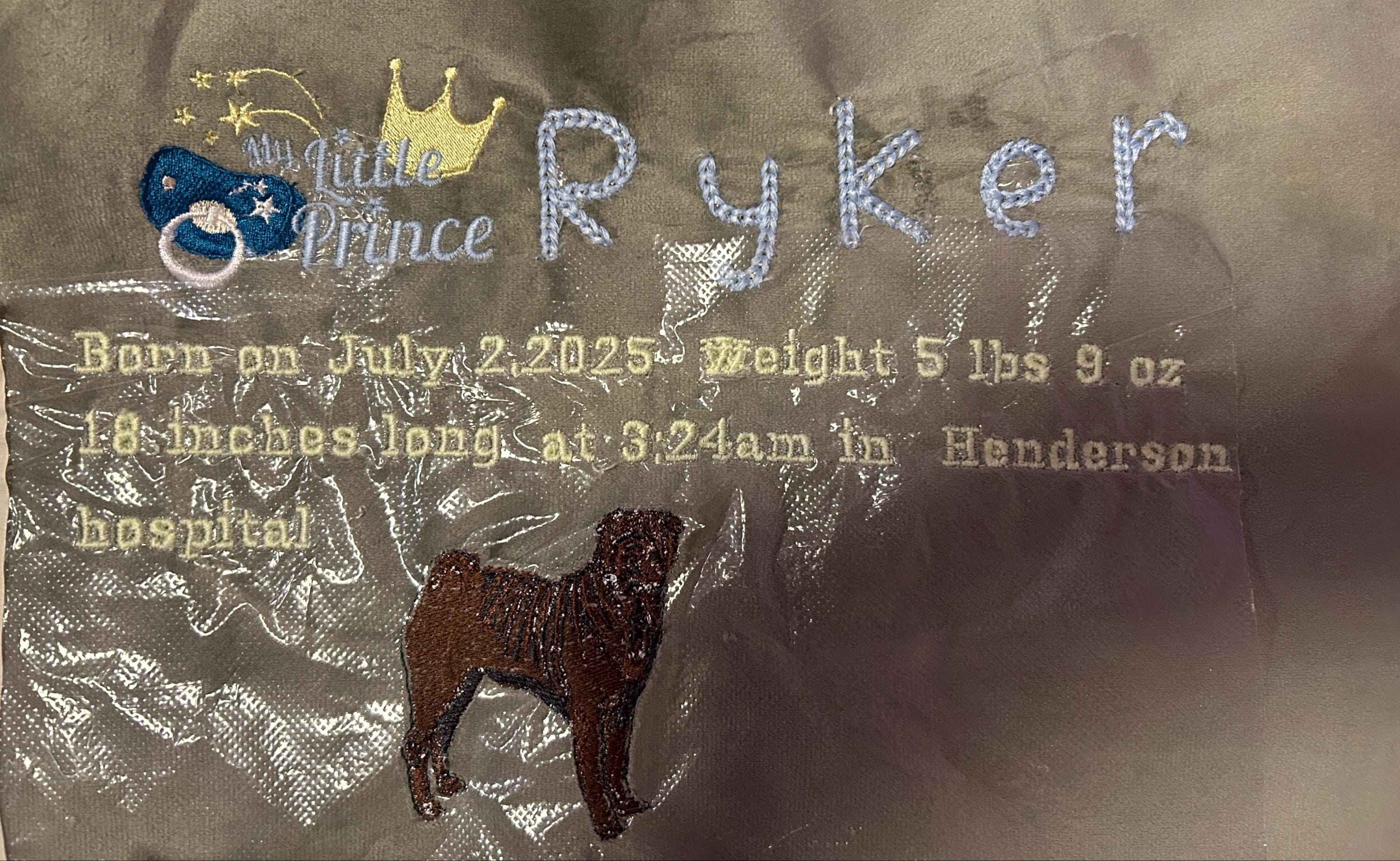
Bold Authentic Chain stitch FONT machine embroidery designs in alphabet letters knit sweater handmade effect chain name, BX included
Whole alphabet A-Z uppercase and lowercase letters, and numbers 0-9.
Very happy how it came out with the glow in the dark thread for the baby’s name on a Lovely, I am making.
Beautiful work, havent stitched it yet, but soon!
Love this font very much
Love love this font, beautifully stitch. Highly recommend